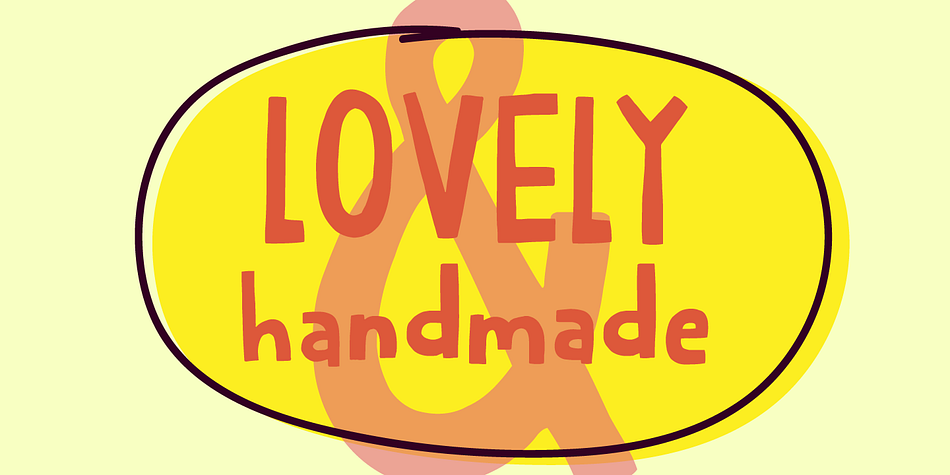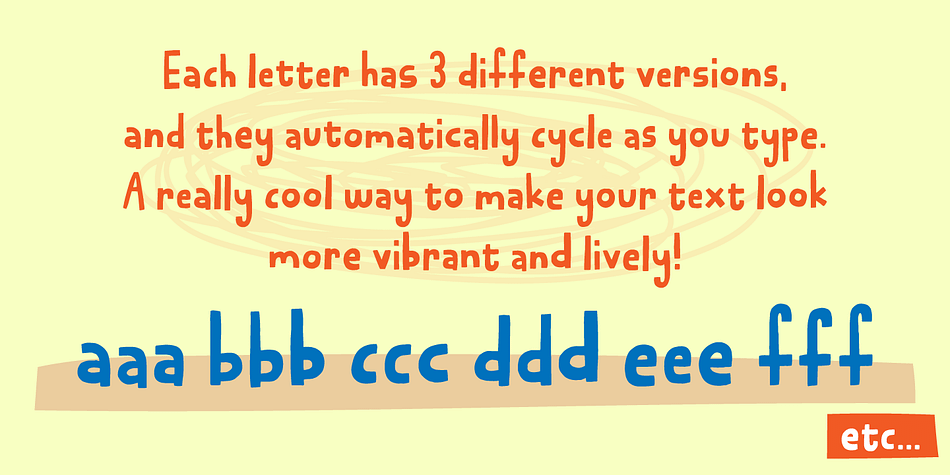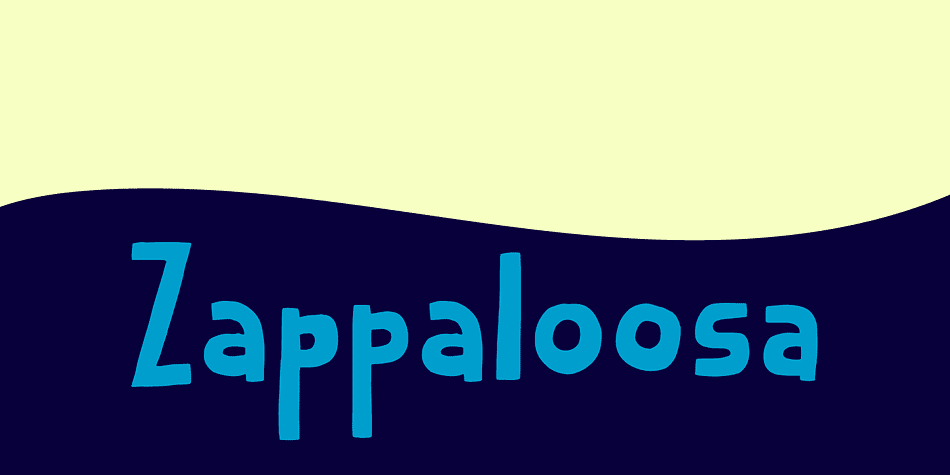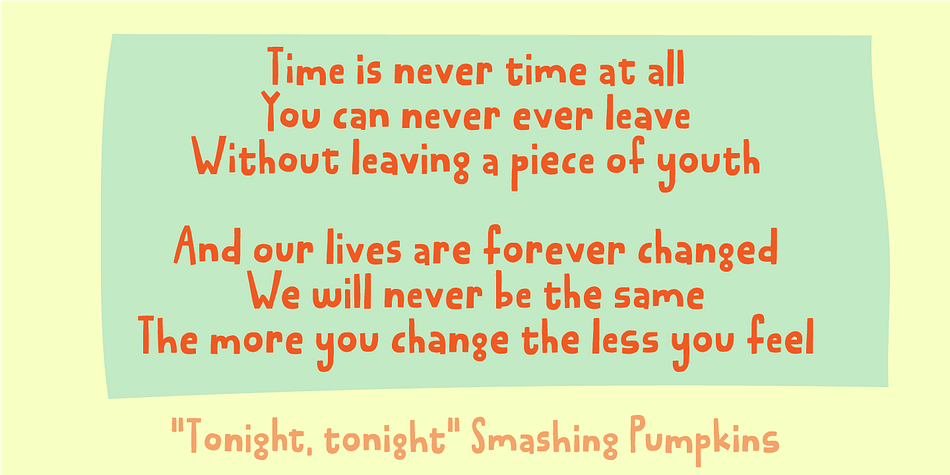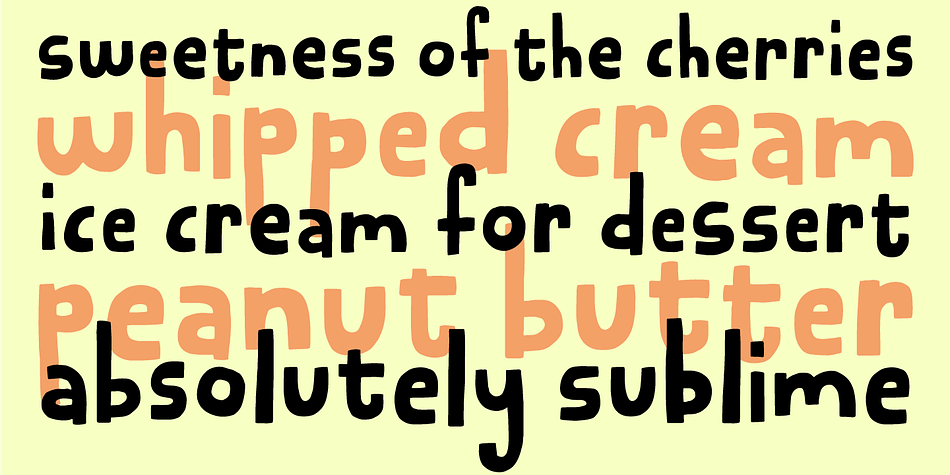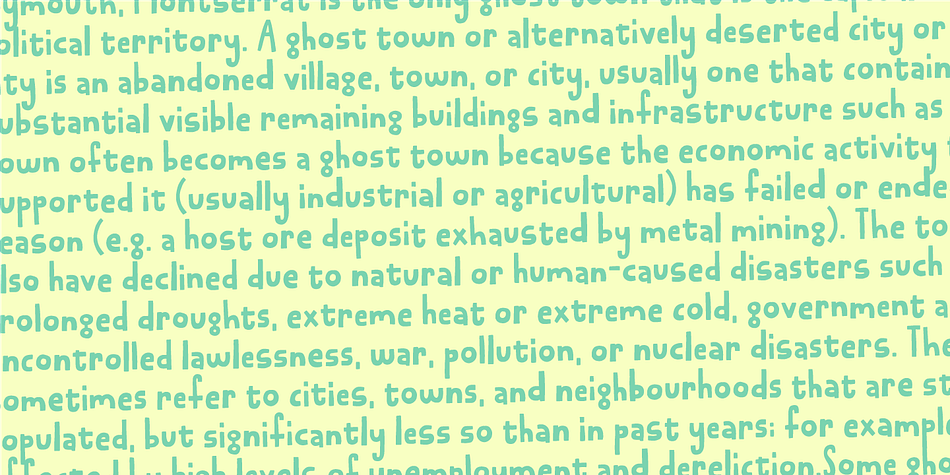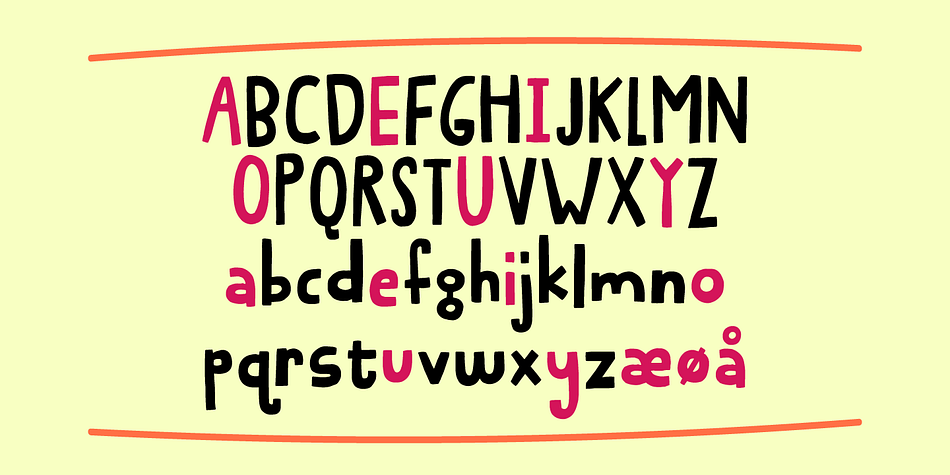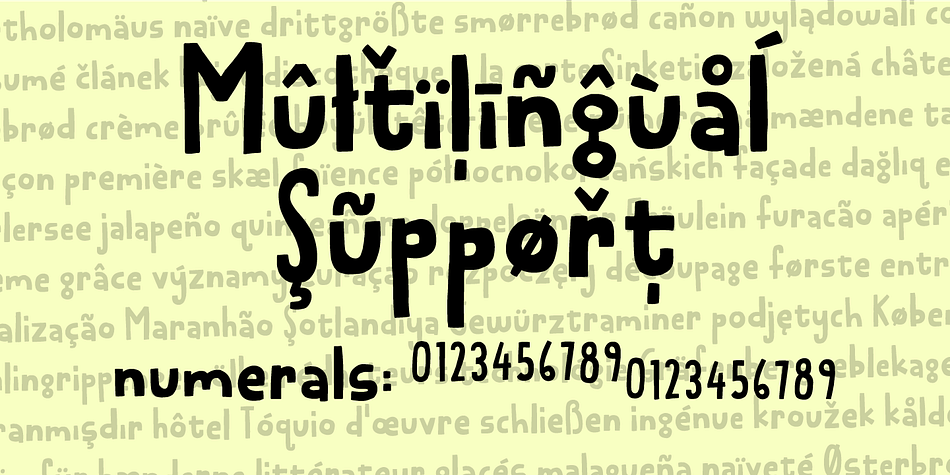
Zappaloosa
Designed by Jakob Fischer, Zappaloosa is a hand display and kids font family. This typeface has two styles and was published by Bogstav.
Zappaloosa is a wordplay, and the name came to me while listening to the radio while making this font. At a point I must have misheard something, but the name Zappaloosa popped up in my mind.
The letters of Zappaloosa are playful and easy to use for serious or more loose use. I’ve added 3 different versions of each lowercase letter and multilingual support